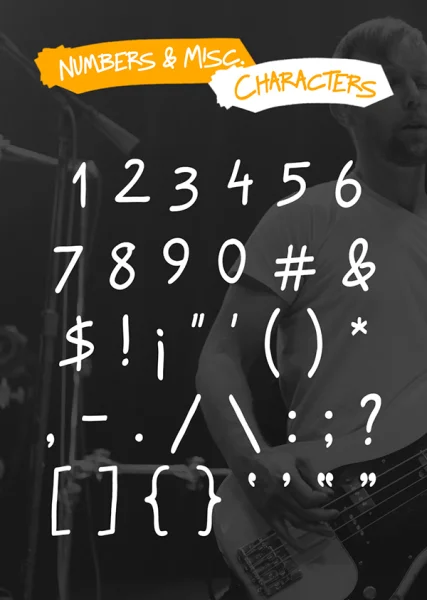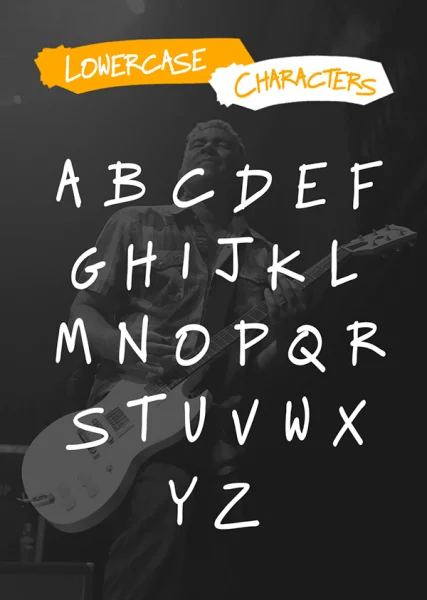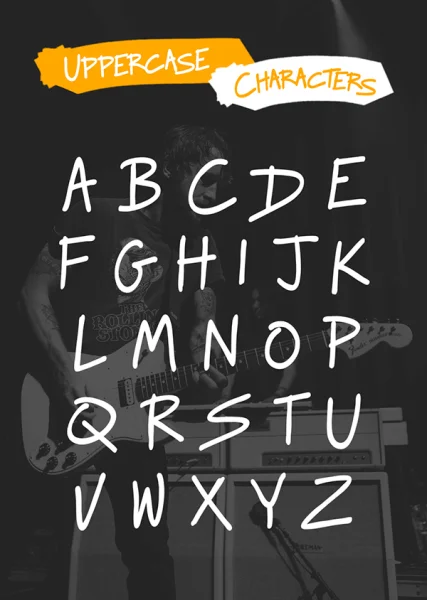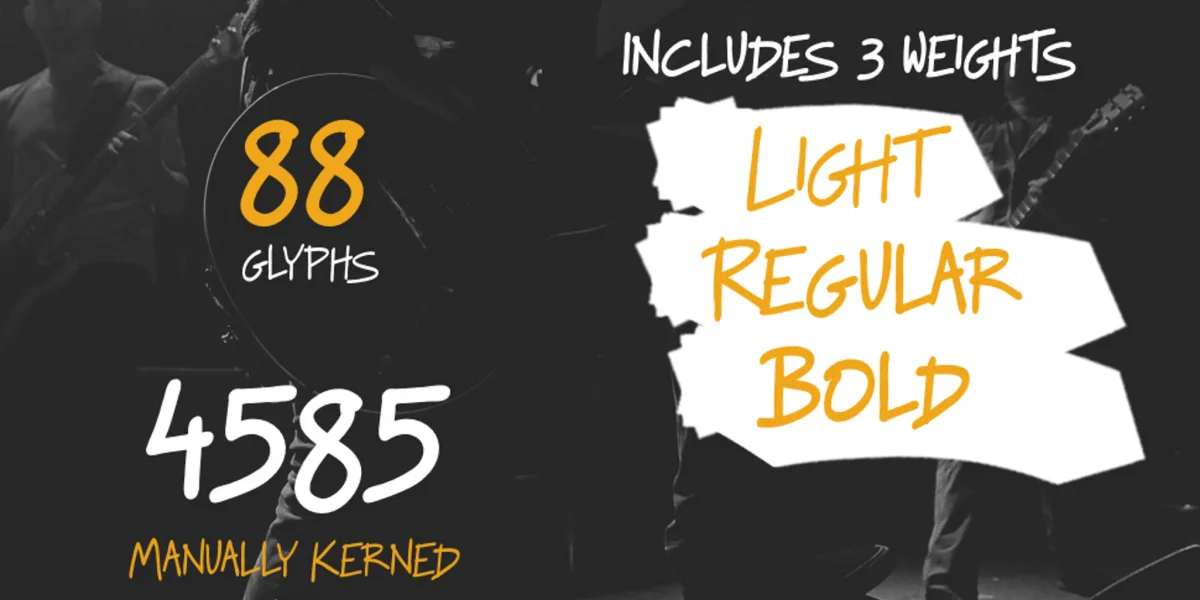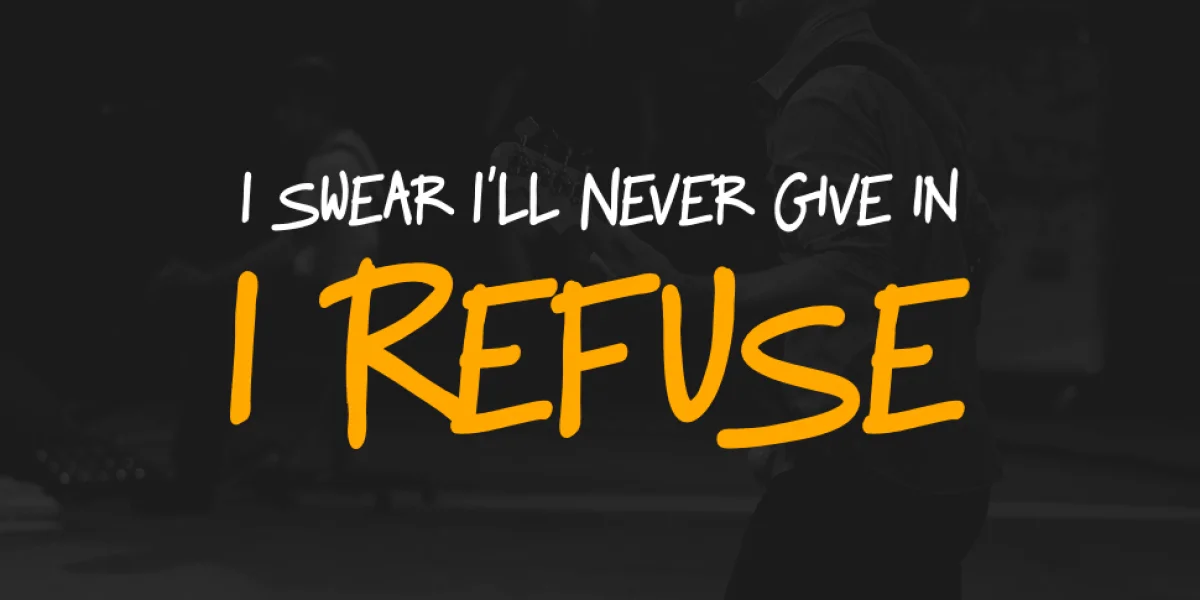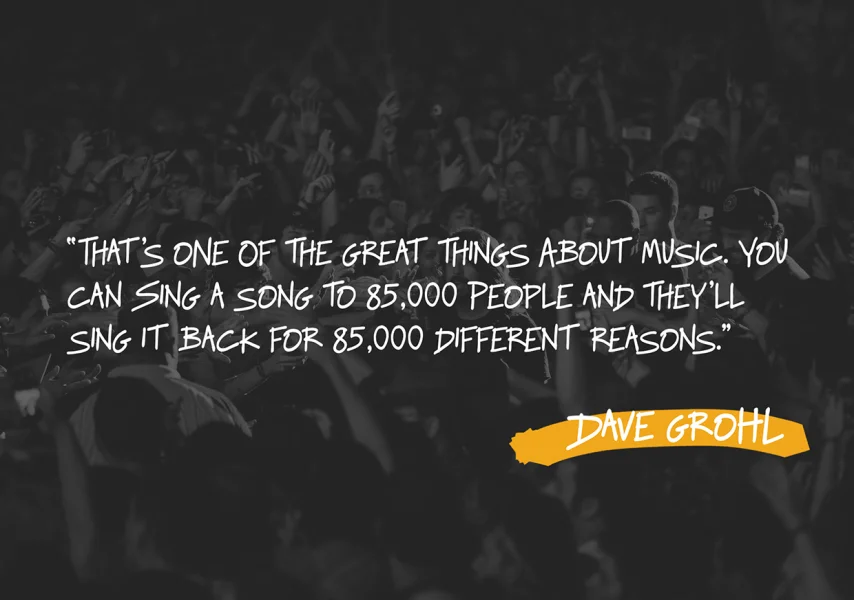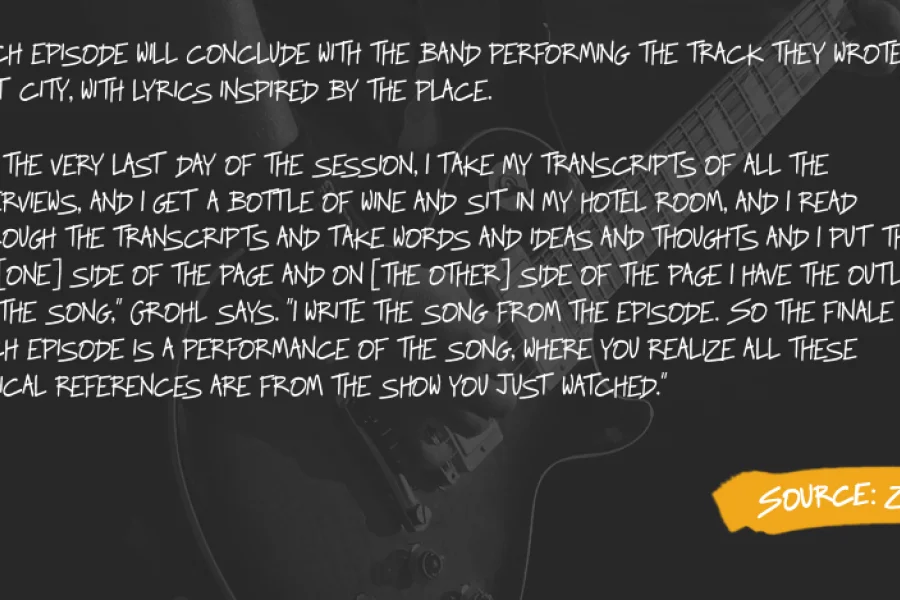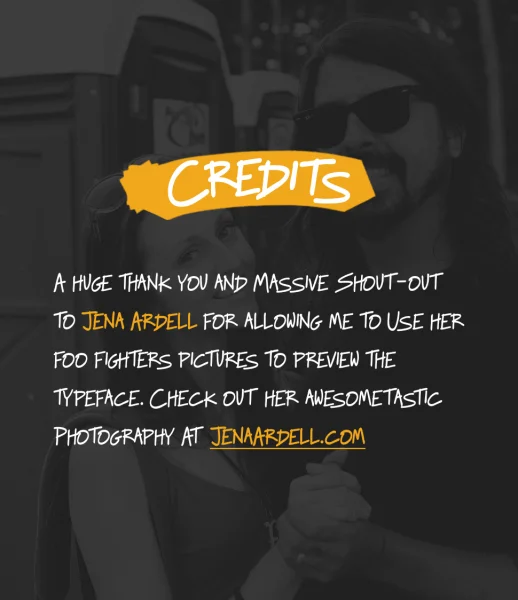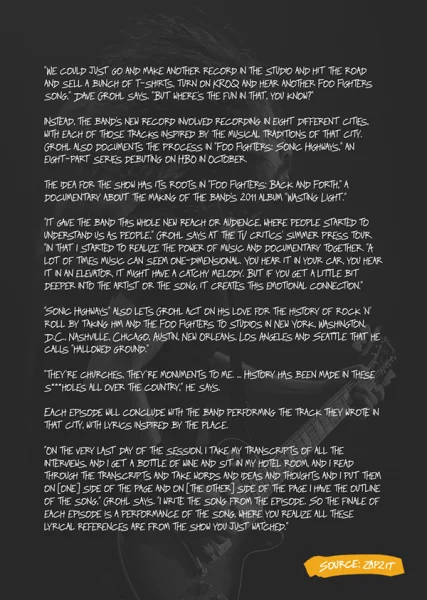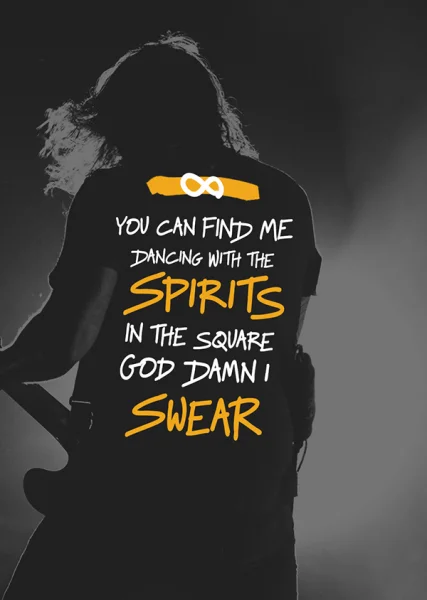
Raggedways is a handmade typeface inspired by the titles seen in: a) The trailer of Sonic Highways, a TV documentary series created by Dave Grohl, focusing on Foo Fighters’ upcoming eighth album which is also titled “Sonic Highways” . b) The movie Sound City, a 2013 documentary film directed by Dave Grohl, about the history of Sound City Studios.
It comes in 3 weights (Light, Regular and Bold), each of which features 88 character glyphs and 4585 manually kerned pairs. The handmade design gives it a raggedy appearance and adds a human element to it. Although ideally suited for music video and film titles, posters, logos, packaging and magazine covers, Raggedways is also suitable for the body text on print media and the web.